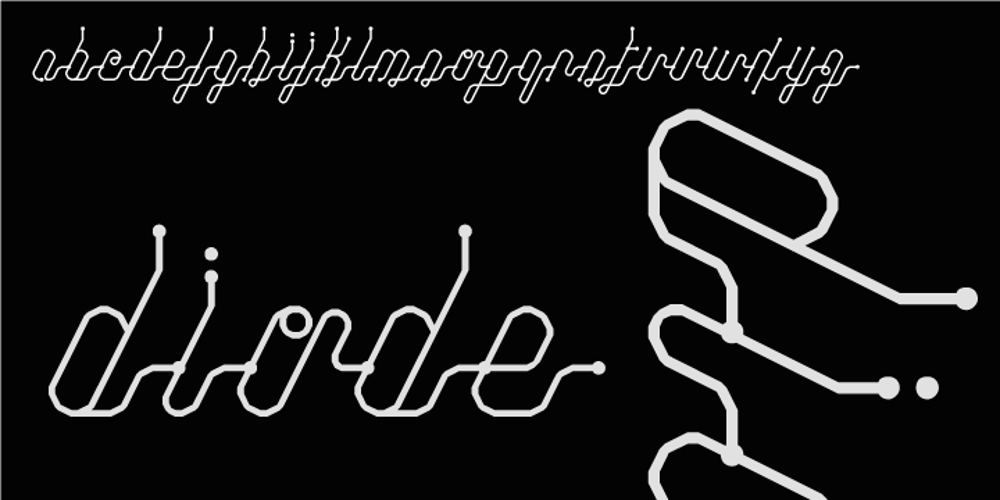
Diode Font Family was designed by Wilson Thomas and published by Funk King. Diode contains 1 styles and family package options. Diode is a modern, versatile script.